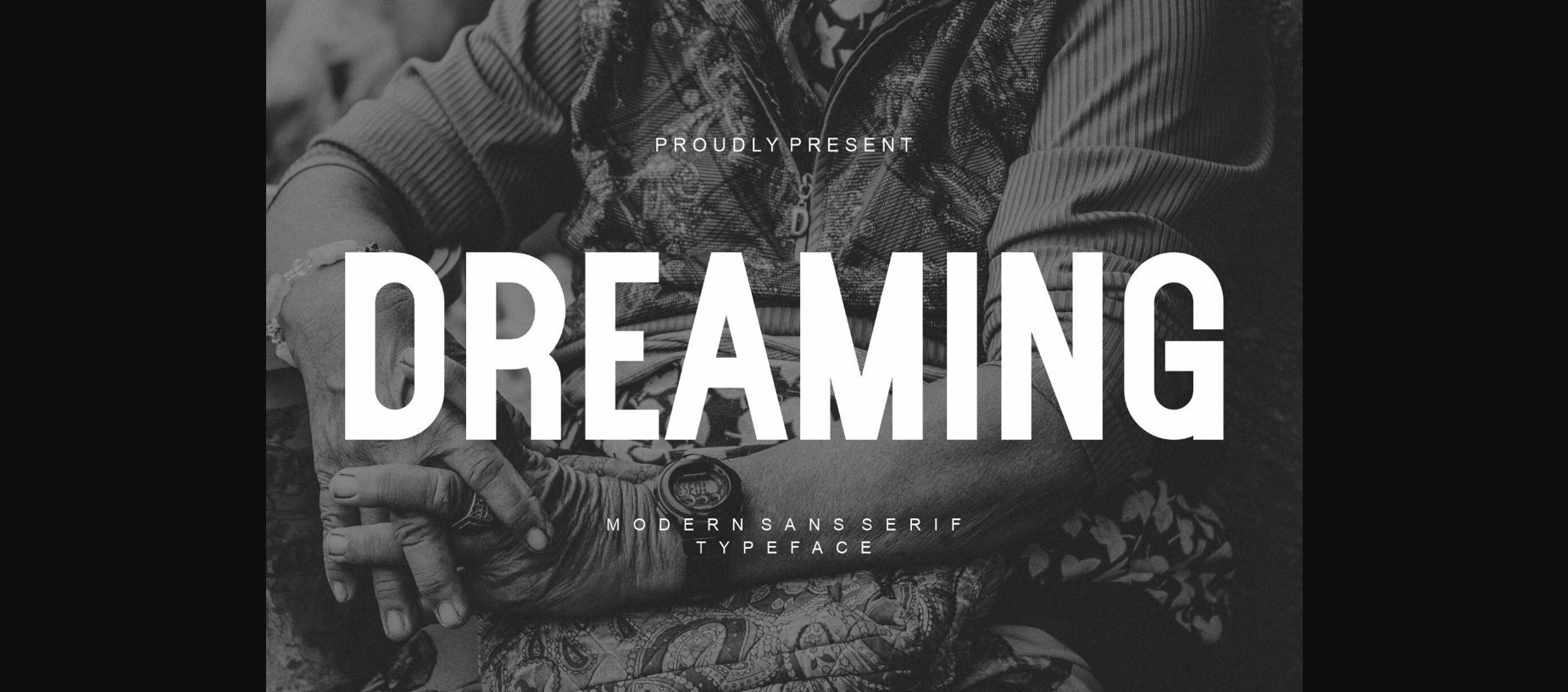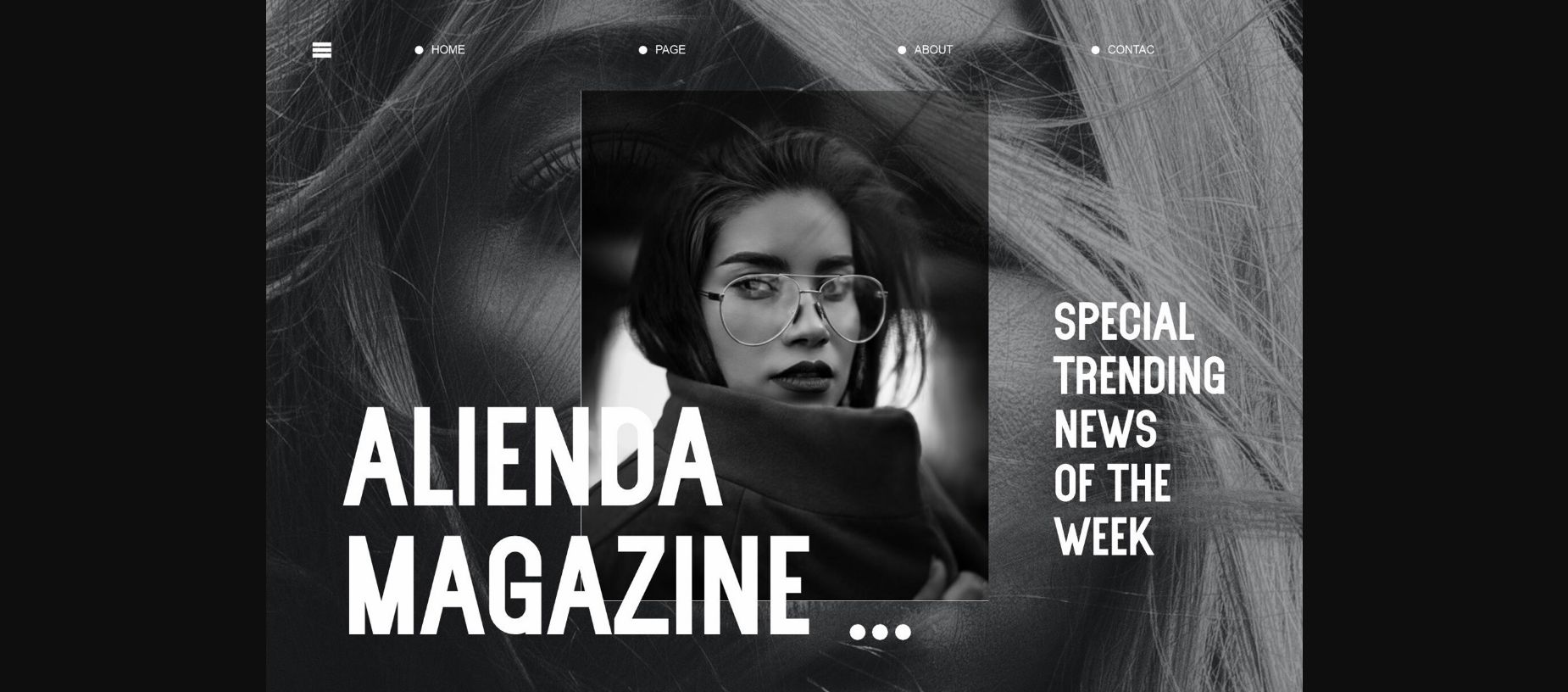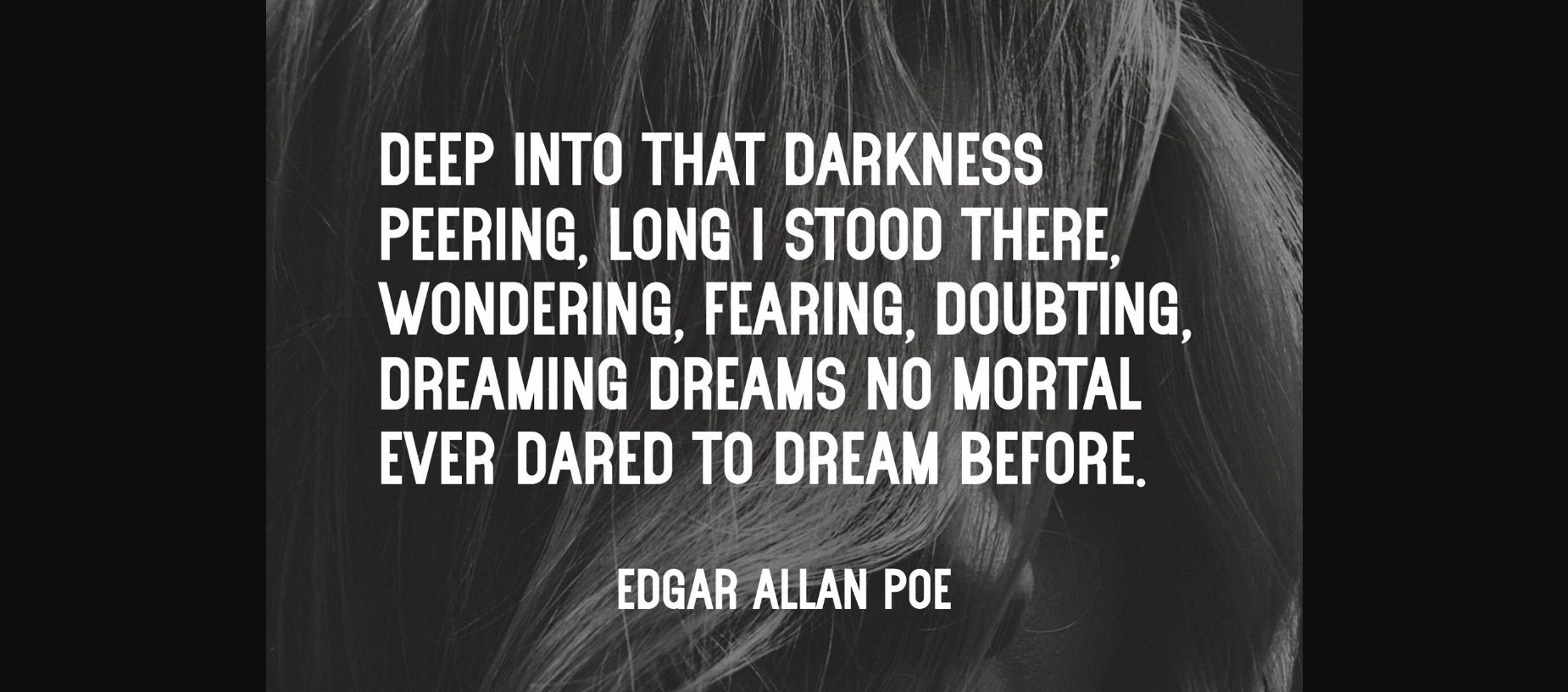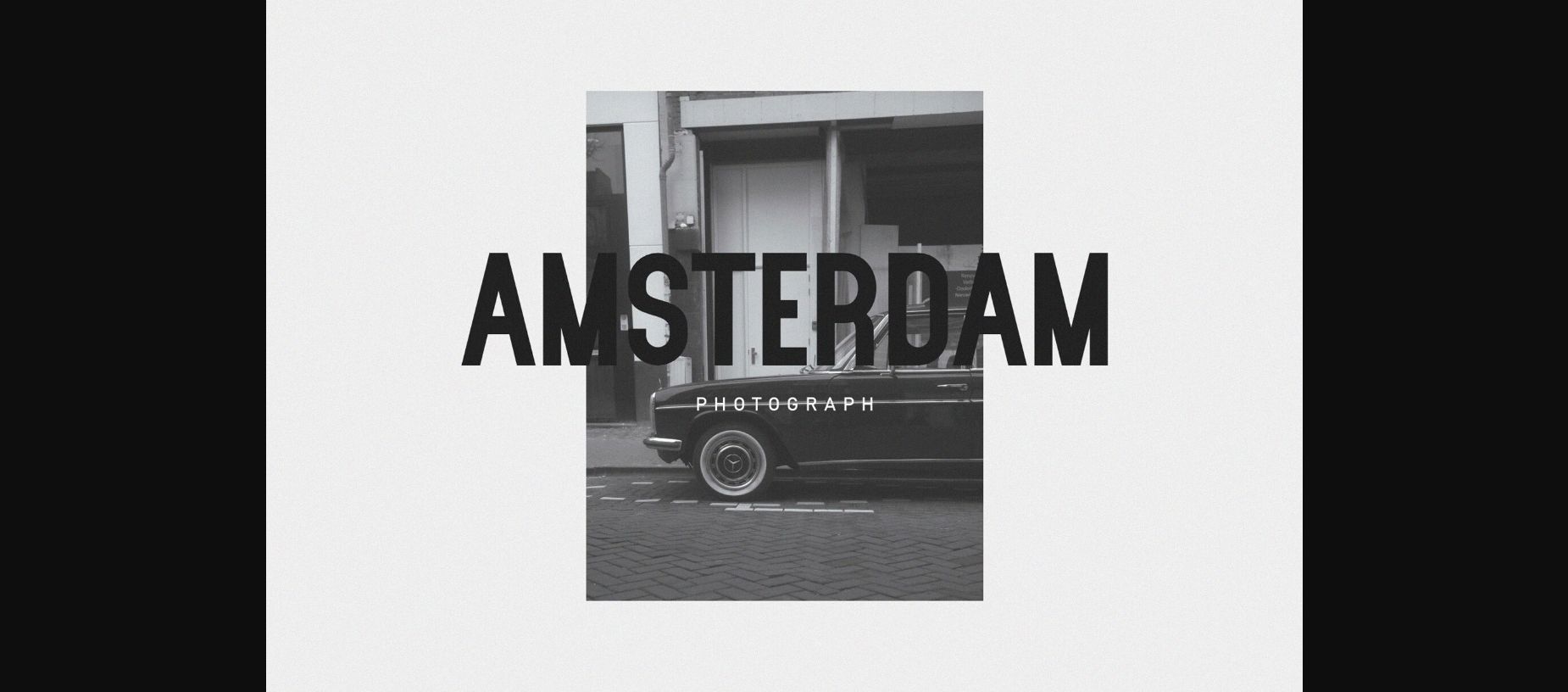
About Dreaming Font
Dreaming is a modern and classic sans serif typeface, inspired by the famous minimalist logo perfect for the purposes of designing templates, brochures, videos, advertising branding, logos, invitation, layout design, elegant crafting, beauty design and others.